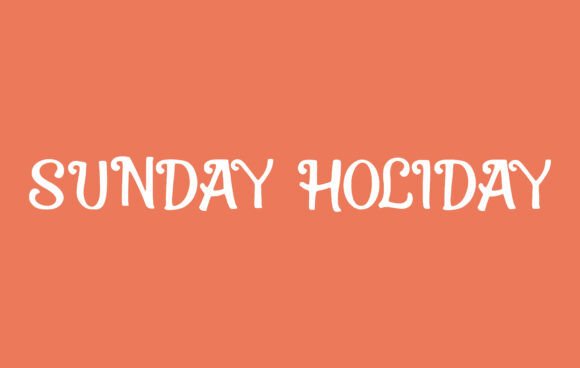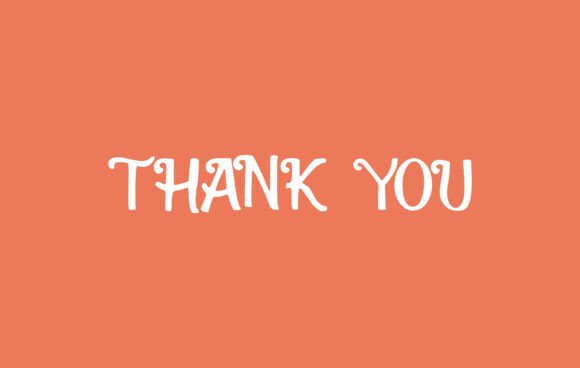
Introducing Banjo Font: The Perfect Blend of Playfulness and Charm
Are you tired of using the same old fonts in your designs? Look no further than Banjo, a fun and friendly handmade display font that’s sure to bring a touch of personality and charm to your work. With its smooth curves and playful proportions, Banjo captures the carefree rhythm of creativity, making it perfect for designers and crafters who want to add a personal, joyful note to their visual projects.
A Handmade Display Typeface with a Personal Touch
Banjo is a handmade display typeface that’s been carefully crafted to bring a natural and approachable vibe to your designs. Each letter carries a touch of handcrafted flair, creating a unique and organic feel that’s perfect for logos, posters, product packaging, quotes, and invitations. Whether you’re working on a branding project, a social media graphic, or a personal craft project, Banjo is the ideal typeface for adding a touch of warmth and character.
Playful and Organic Design
One of the standout features of Banjo is its playful and organic design. The font’s rounded and friendly letterforms are perfect for creating a sense of joy and approachability in your designs. The bold yet soft design makes it versatile — strong enough for headlines, yet gentle enough for decorative elements. This means you can use Banjo for a wide range of projects, from bold and eye-catching posters to delicate and intricate craft projects.
Perfect for Branding, Posters & Quotes
Banjo is a font that’s specifically designed to bring a touch of personality and charm to your branding, posters, and quotes. Its unique and playful design makes it perfect for creating eye-catching headlines, social media graphics, and promotional materials that will help your business stand out from the crowd. Whether you’re a small business owner, a social media influencer, or a crafty entrepreneur, Banjo is the perfect font for adding a personal touch to your visual brand.
Easy to Use for Digital & Print Projects
Another great thing about Banjo is that it’s easy to use for both digital and print projects. The font is optimized for use on a variety of platforms, including Adobe Creative Cloud, Canva, and Microsoft Office. This means you can use Banjo to create stunning digital graphics, as well as beautiful print materials like brochures, flyers, and business cards.
Key Features of Banjo Font
- Handmade Display Typeface: Banjo is a unique and handcrafted font that’s perfect for adding a personal touch to your designs.
- Playful and Organic Design: The font’s playful and organic design makes it perfect for creating a sense of joy and approachability in your designs.
- Perfect for Branding, Posters & Quotes: Banjo is specifically designed to bring a touch of personality and charm to your branding, posters, and quotes.
- Rounded and Friendly Letterforms: The font’s rounded and friendly letterforms are perfect for creating a sense of warmth and approachability in your designs.
- Easy to Use for Digital & Print Projects: Banjo is optimized for use on a variety of platforms, making it easy to use for both digital and print projects.
In conclusion, Banjo is a fun and friendly handmade display font that’s perfect for designers and crafters who want to add a personal, joyful note to their visual work. With its smooth curves, playful proportions, and handcrafted flair, Banjo captures the carefree rhythm of creativity and brings a touch of warmth and character to any design. Whether you’re working on a branding project, a social media graphic, or a personal craft project, Banjo is the ideal typeface for adding a touch of personality and charm. So why not give Banjo a try and see how it can bring your designs to life?